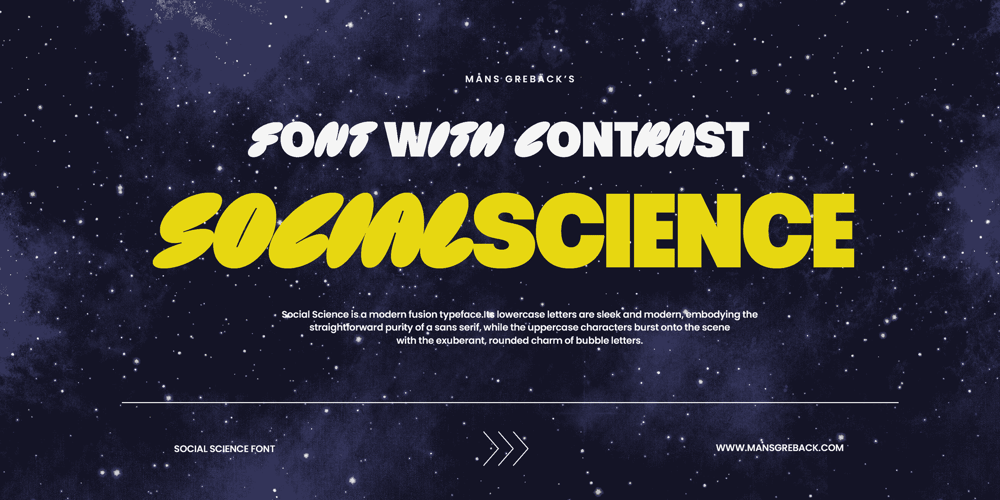
Social Science Font Family was designed by Måns Grebäck and published by Mans Greback. Social Science contains 6 styles and family package options. Social Science is a modern fusion typeface. Its lowercase letters are sleek and modern, embodying the straightforward purity of a sans serif, while the uppercase characters burst onto the scene with the exuberant, rounded charm of bubble letters. The graffiti-inspired bubbles bring a sense of urban cool to the design, infusing each word with a street-art aesthetic. This juxtaposition creates a unique visual rhythm, making Social Science perfect for designs that aim to stand out and make a bold statement. The font is built with advanced OpenType functionality and guaranteed top-notch quality, containing stylistic and contextual alternates, ligatures and more automatic and manual features; all to give you full control and customizability. It has extensive lingual support, covering all Latin-based languages, from North Europa to South Africa, from America to South-East Asia. It contains all characters and symbols you’ll ever need, including all punctuation and numbers. Social Science is another testament to Mans Greback’s ability to create fonts that are not just visually striking but also rich in character and versatility, suitable for a wide array of design needs.